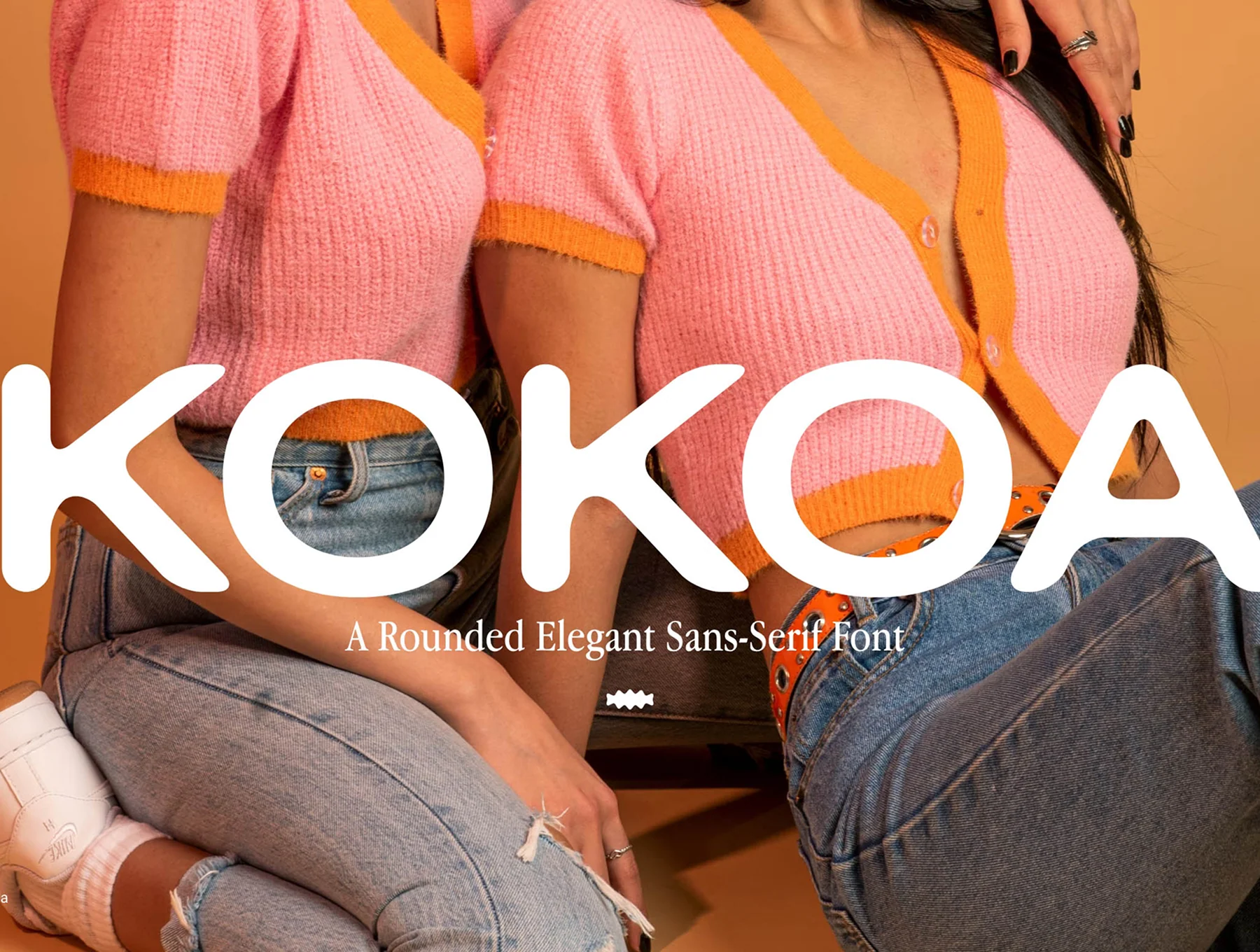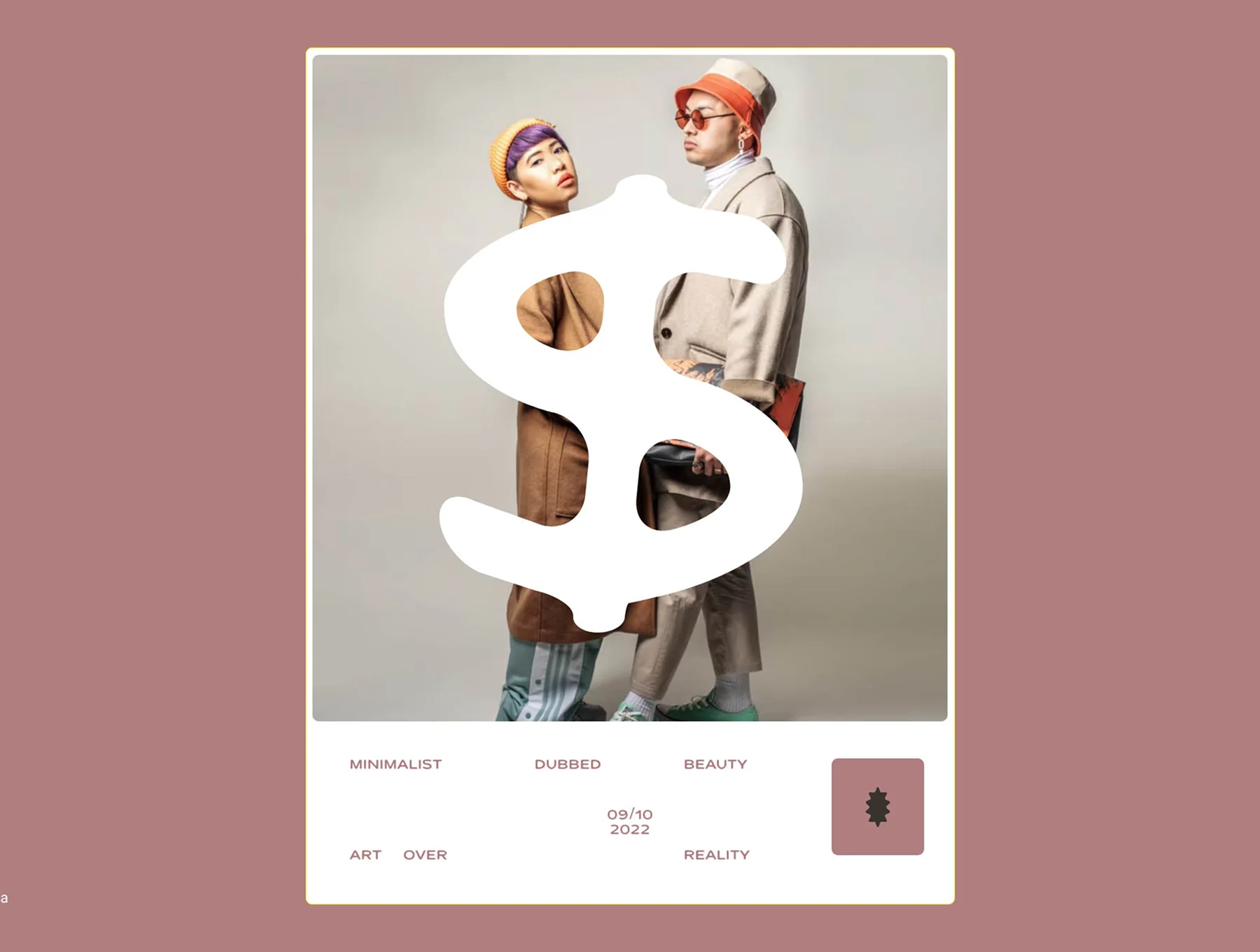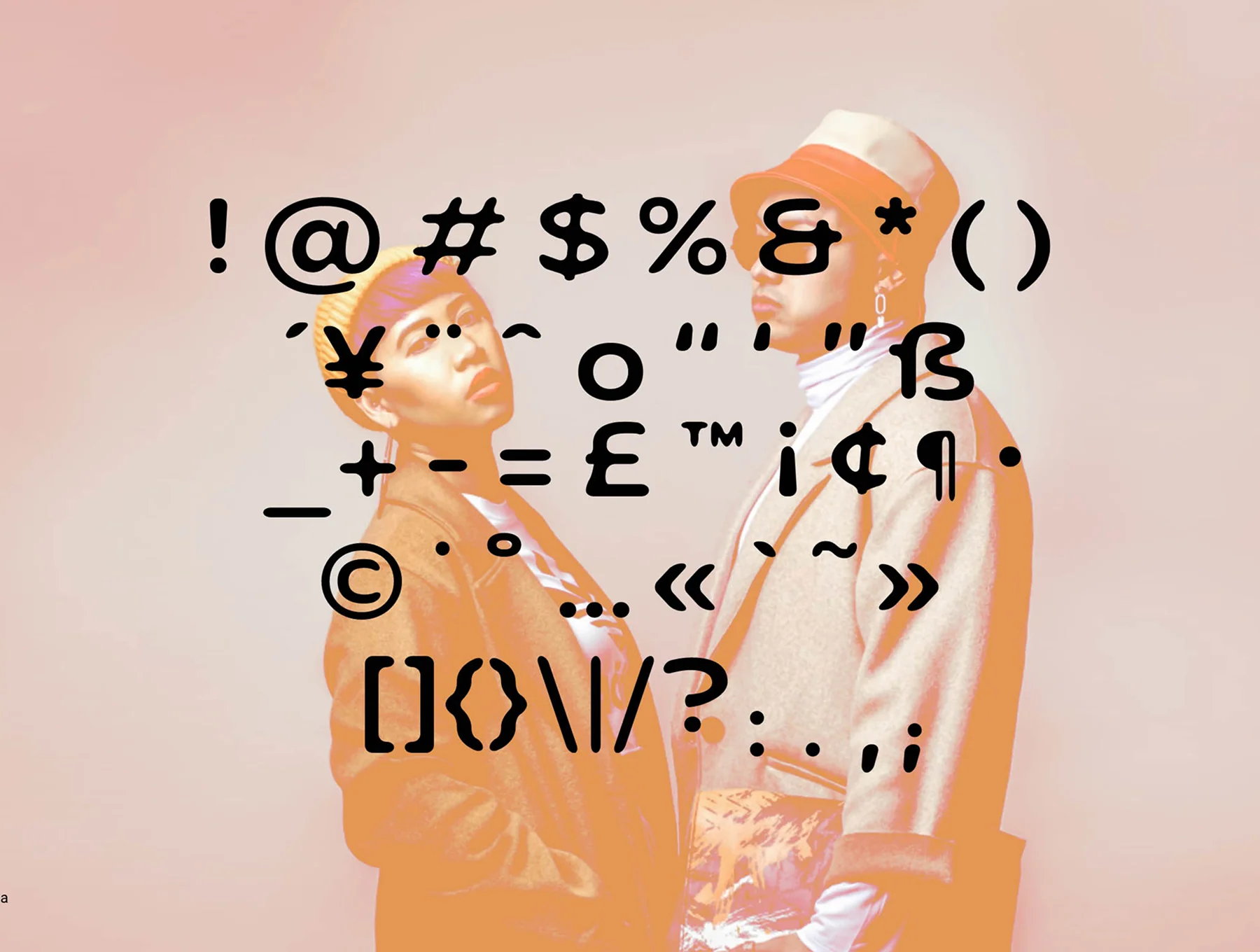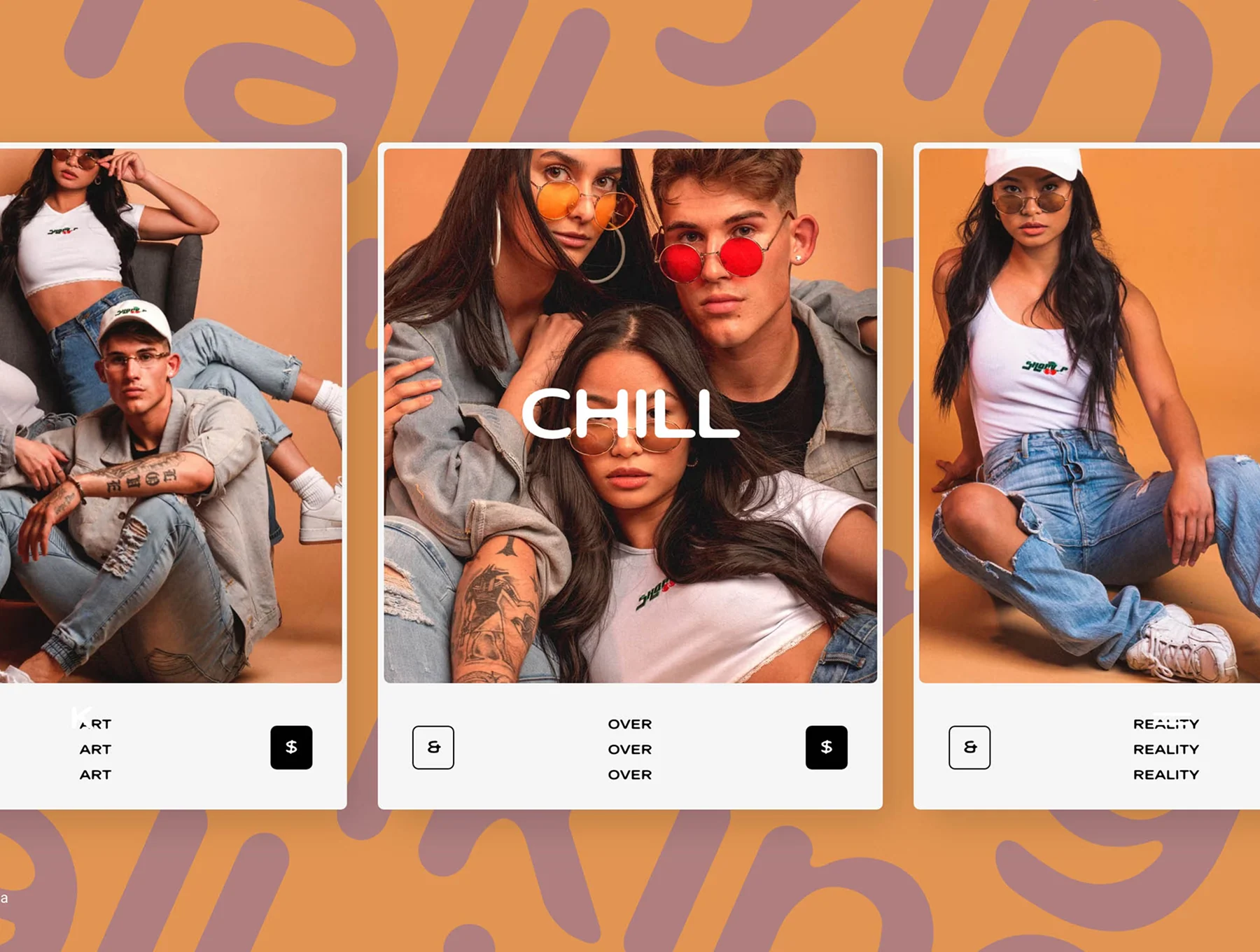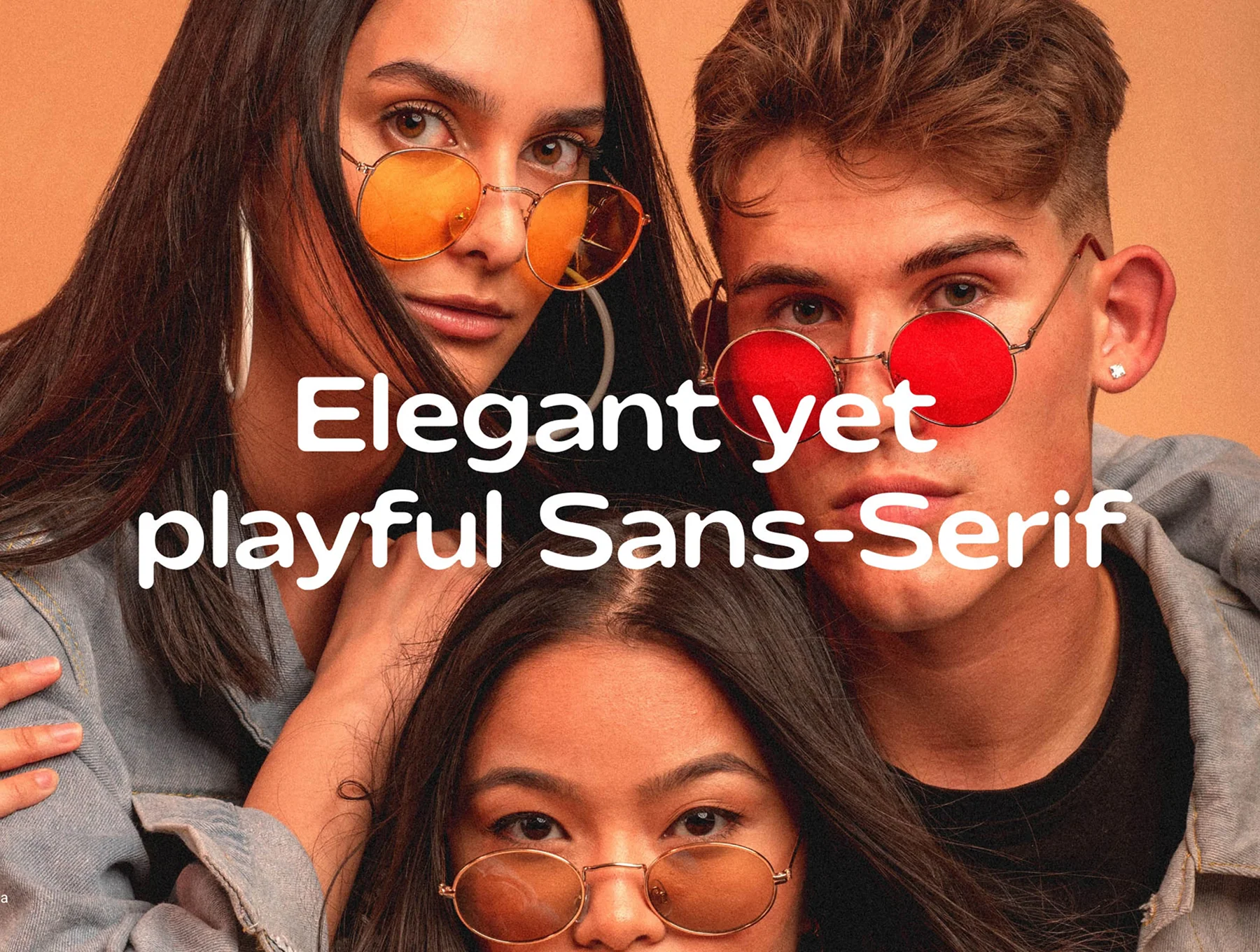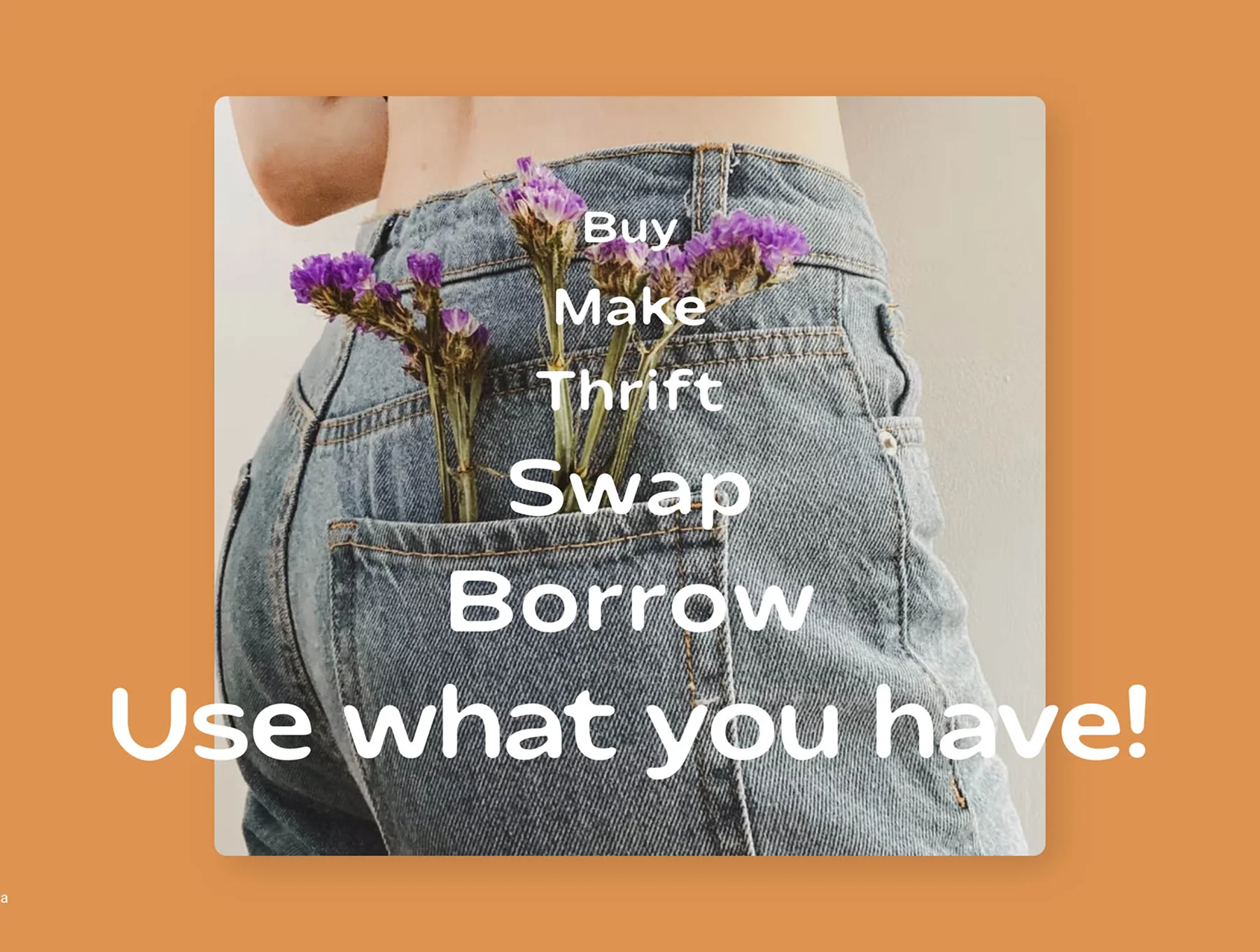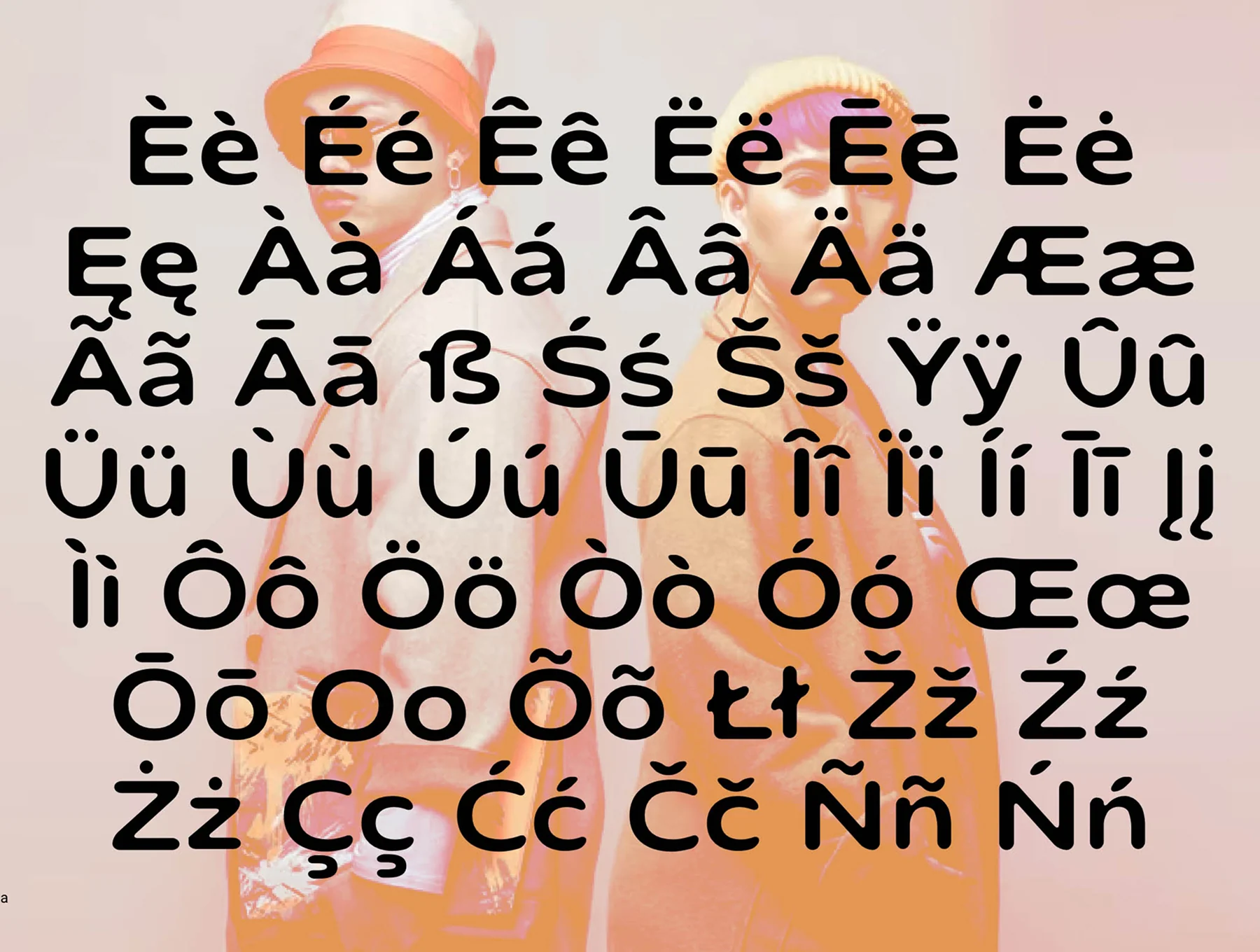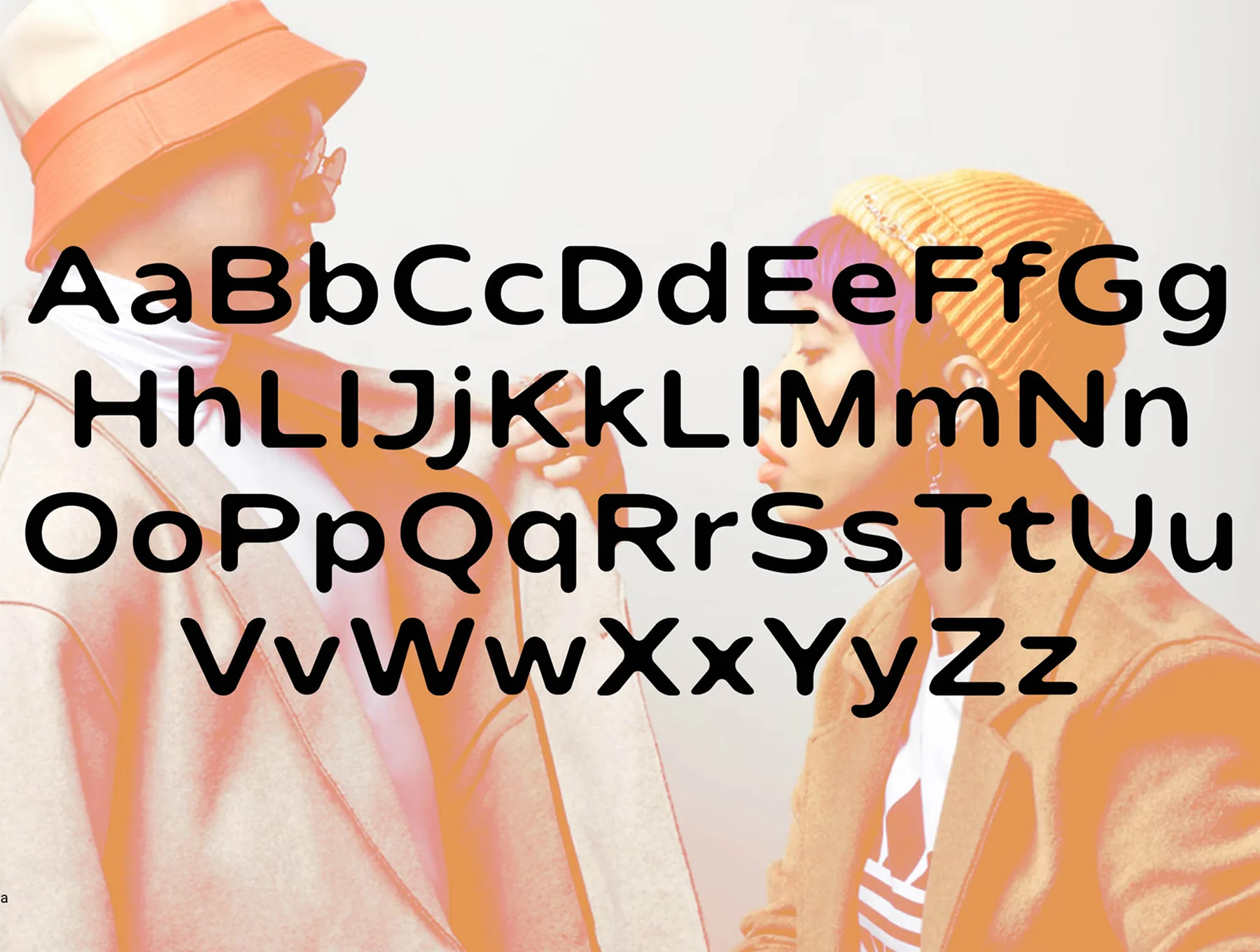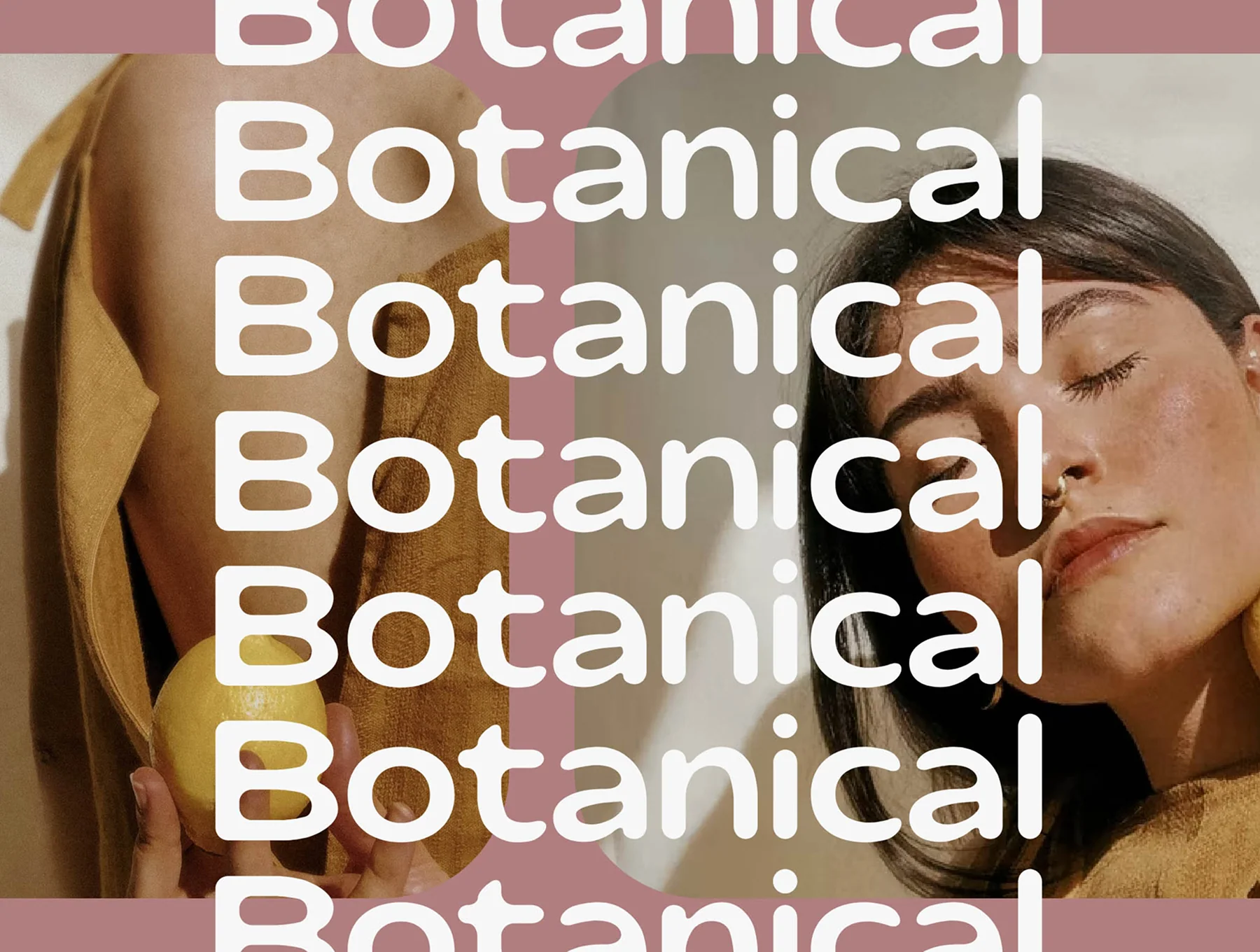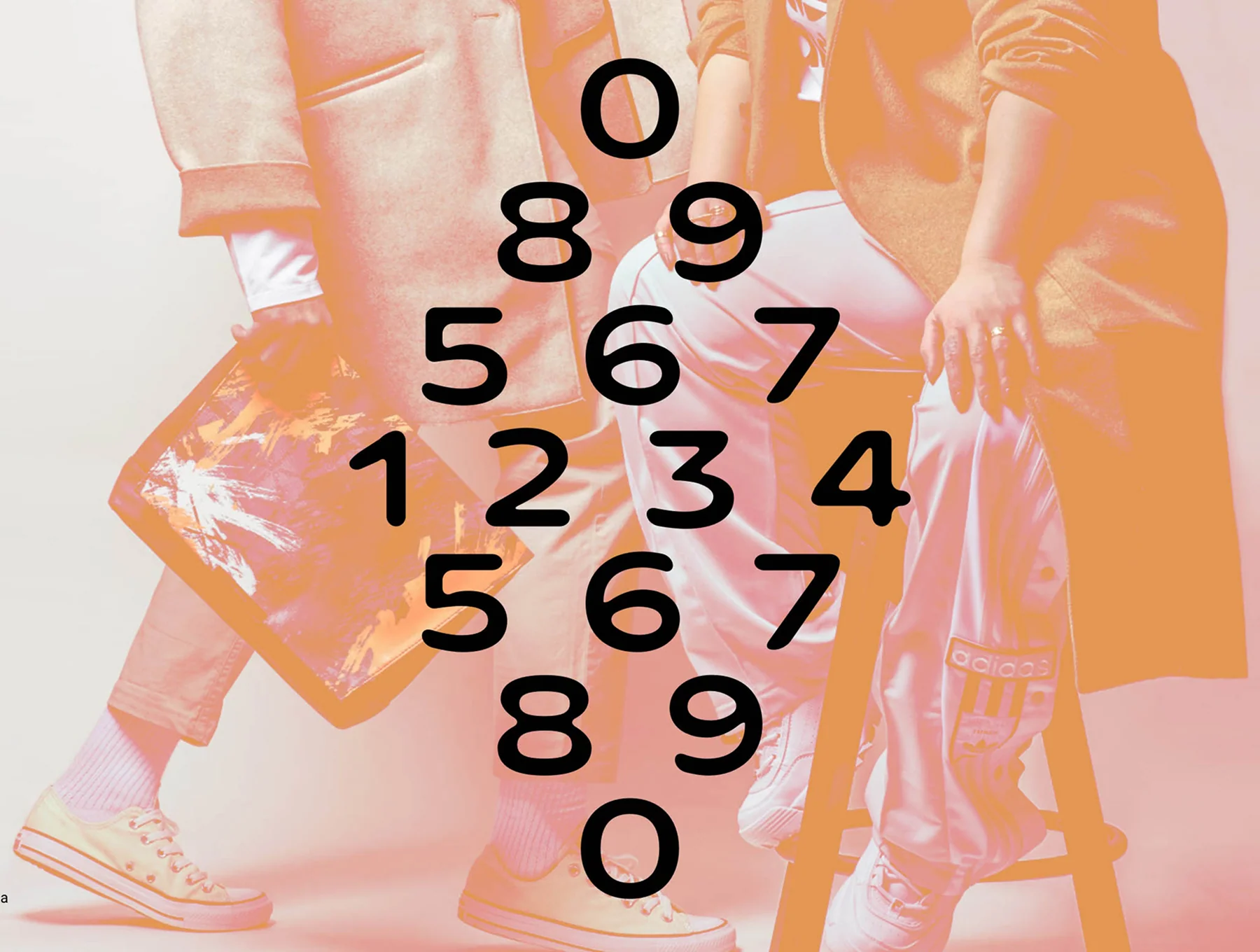
Kokoa – Rounded Sans-Serif Font
A soft, approachable sans-serif featuring curved corners and a cheerful character.
Softly rounded sans-serif with a neat, approachable style
Ideal for branding, package layouts, and website design
Readable form with even spacing and a clear framework
Suitable for headlines as well as body text
Kokoa is a rounded sans serif font combining crisp readability with a friendly tone. Its gentle curves and well-proportioned forms suit branding, packaging, social posts, and editorial layouts. Bold for titles yet clear in body copy, it feels natural and approachable in print or digital work.